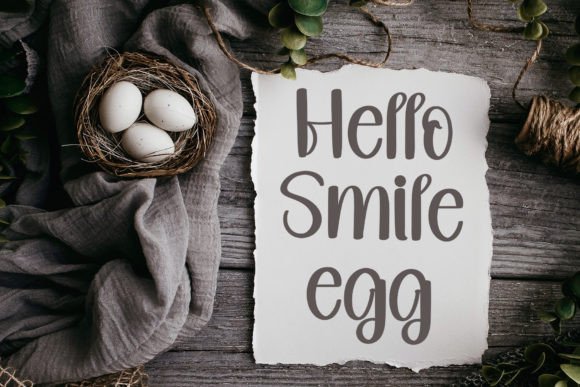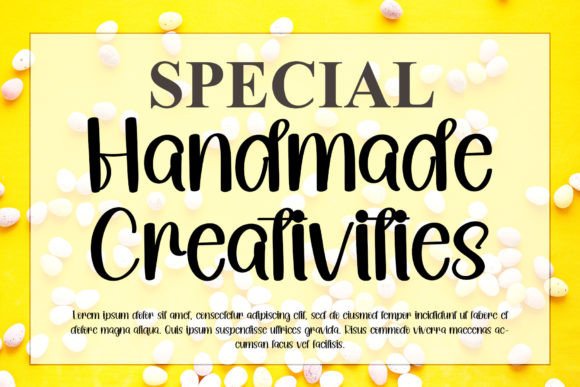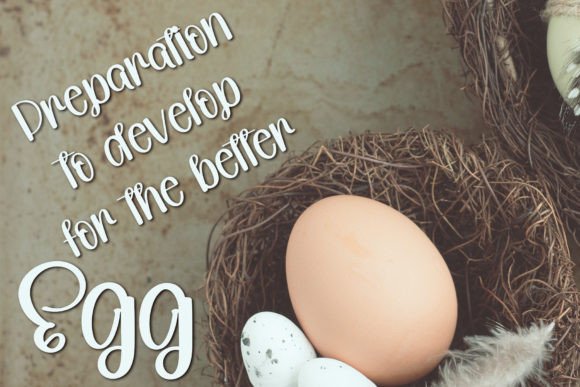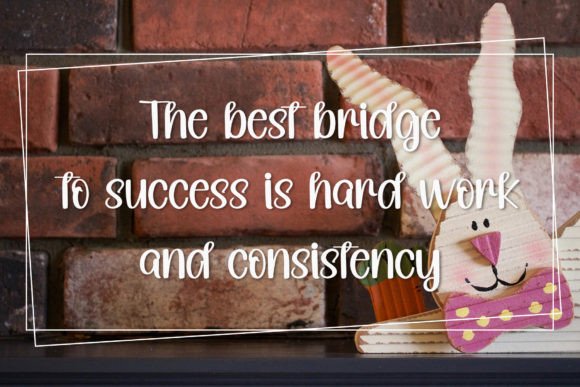
Spring into Creativity with Easter Font
As the Easter season approaches, designers often find themselves brainstorming ideas for festive and fun projects. You’ve spent hours browsing through design inspiration boards, and suddenly, a burst of creativity strikes – a playful invitation, a whimsical greeting card, or a colorful Easter-themed craft. That’s when you remember: Easter Font is here to help!
This charming typeface is designed to capture the joy and spirit of Easter. With its decorative elements and playful letterforms, Easter Font adds a delightful touch to any design. Whether you’re creating Easter-themed invitations, greeting cards, or crafts, this font is the perfect way to bring some festive cheer to your work. As a designer, you’ll appreciate the value of Easter Font – it’s a versatile and engaging tool that will make your projects stand out.
Easter Font Key Features
- Font Family: Easter Font is a unique, hand-drawn font designed to evoke a whimsical and playful feel.
- Unique Characteristics: Features intricate details, curved lines, and decorative flourishes, making it perfect for adding a touch of elegance and sophistication to designs.
Easter Font Review
Overall, I was excited to dive into the Easter Font, but my expectations were a bit mixed. Here’s my honest review:
- The Easter Font has a lovely, playful feel to it. It’s perfect for Easter-themed designs or spring-inspired projects.
- The font is highly customizable, with a wide range of styles and colors to choose from. This makes it easy to tailor the font to your specific design needs.
- The font is also very easy to use, even for designers who are new to typography.
- The Easter Font is a bit too on-the-nose for some designs. If you’re looking for a more subtle font, this might not be the best choice.
- The font can be a bit too whimsical for more formal or professional designs.
- The Easter Font is not as versatile as some other fonts on the market. It’s best suited for Easter-themed designs or spring-inspired projects.
Overall, I think the Easter Font is a great choice for designers who are looking for a fun and playful font for Easter-themed designs or spring-inspired projects. However, it might not be the best choice for more formal or professional designs. With a bit of creativity, you can make the Easter Font work for a wide range of projects, but it’s not as versatile as some other fonts on the market.
Easter Font is commonly used for Easter-themed designs, such as Easter egg decorations, Easter card templates, and Easter party invitations. You can also use it for general spring-themed designs, such as spring floral arrangements and spring-themed social media posts.
To get the most out of Easter Font, experiment with different font sizes, colors, and styles to create unique and eye-catching designs. You can also combine Easter Font with other spring-themed graphics and elements to create a cohesive and festive look.